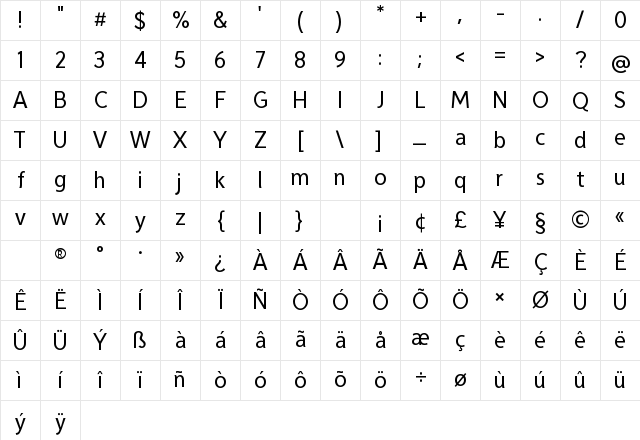
Devina Rodent Regular
Design Context for Devina Rodent
Devina Rodent is a composed and adaptable typeface that performs quietly and consistently across a wide range of design contexts.